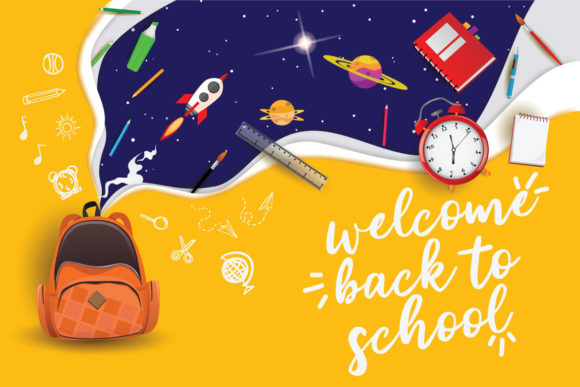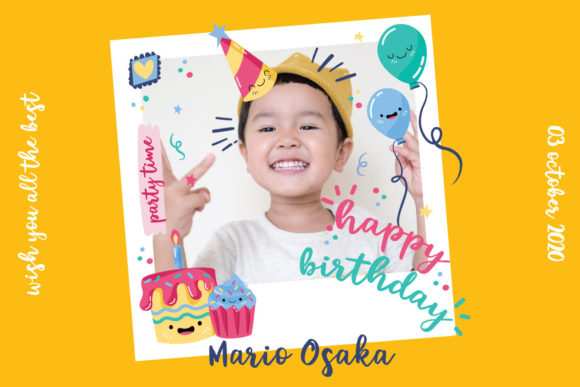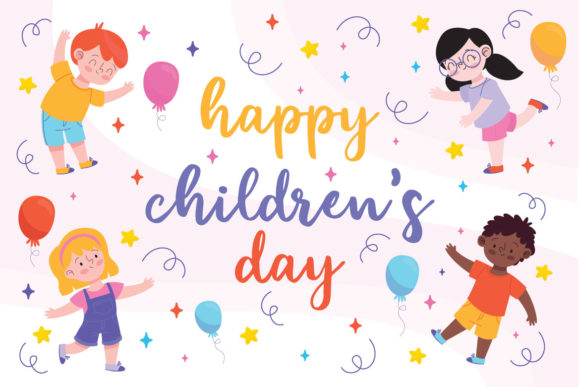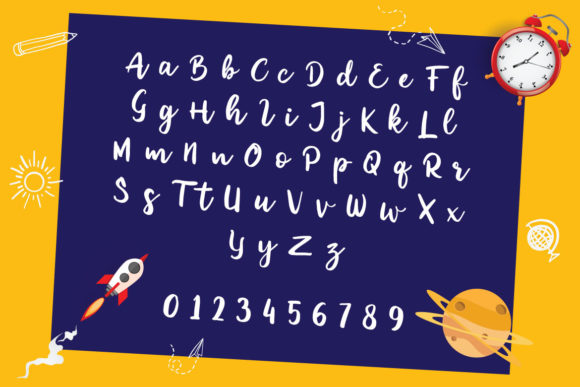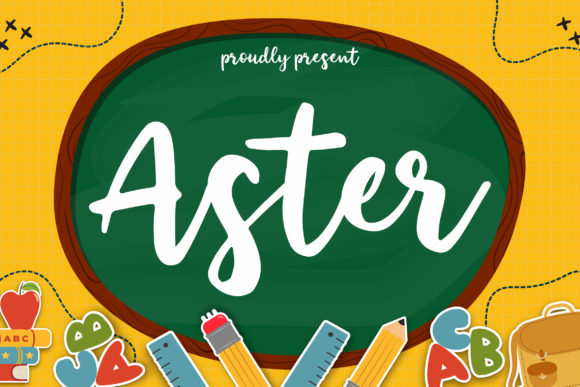
Aster Font: Unleashing Creativity with a Playful Handwritten Style
In the world of typography, fonts play a crucial role in bringing creative ideas to life. Among the numerous font styles available, the Aster Font stands out for its unique blend of fun, quirkiness, and authenticity. This enchanting handwritten font has the power to transform any project into a true standout, making it a favorite among designers, crafters, and educators. In this article, we’ll dive into the world of Aster Font, exploring its characteristics, uses, and benefits.
The Charm of Aster Font
Aster Font embodies the essence of childhood playfulness, making it an ideal choice for projects that require a touch of whimsy and imagination. Its handwritten style is reminiscent of a child’s scribbles, yet it retains a level of sophistication that makes it suitable for a wide range of applications. The font’s quirky and authentic feel is sure to capture the attention of your audience, adding a dash of personality to your designs.
Creative Possibilities with Aster Font
One of the most significant advantages of Aster Font is its versatility. Its childlike playfulness makes it an excellent choice for:
- Kids’ projects: Use Aster Font to create engaging and interactive materials for kids, such as worksheets, posters, and activity sheets.
- School projects: Add a touch of personality to school projects, presentations, and reports with Aster Font’s playful style.
- Crafting and DIY projects: Aster Font is perfect for crafting and DIY enthusiasts who want to add a personal touch to their creations, such as handmade cards, gift tags, and scrapbooking pages.
- Digital content: Use Aster Font to create eye-catching social media graphics, blog posts, and website headers that showcase your brand’s personality.
Benefits of Using Aster Font
Aster Font offers several benefits that make it an attractive choice for designers and crafters:
- Unique and distinctive: Aster Font’s quirky style sets it apart from more traditional fonts, ensuring your projects stand out from the crowd.
- Easy to read: Despite its playful nature, Aster Font remains highly legible, making it suitable for body text and headings.
- Highly versatile: Use Aster Font for a wide range of projects, from digital content to print materials.
- Fun and engaging: Aster Font’s childlike playfulness adds a touch of whimsy to your designs, making them more engaging and interactive.
Tips for Using Aster Font Effectively
To get the most out of Aster Font, consider the following tips:
- Pair with complementary fonts: Combine Aster Font with simpler fonts to create visual interest and hierarchy.
- Experiment with colors: Aster Font looks great in bold, bright colors, so don’t be afraid to get creative with your color palette.
- Use it sparingly: While Aster Font is highly engaging, it’s best to use it sparingly to avoid overwhelming your audience.
Aster Font is a unique and captivating handwritten font that embodies fun, quirkiness, and authenticity. Its childlike playfulness makes it an excellent choice for a wide range of projects, from kids’ materials to digital content. With its versatility, legibility, and engaging style, Aster Font is sure to become a favorite among designers, crafters, and educators. So why not give it a try and unleash your creativity with Aster Font?